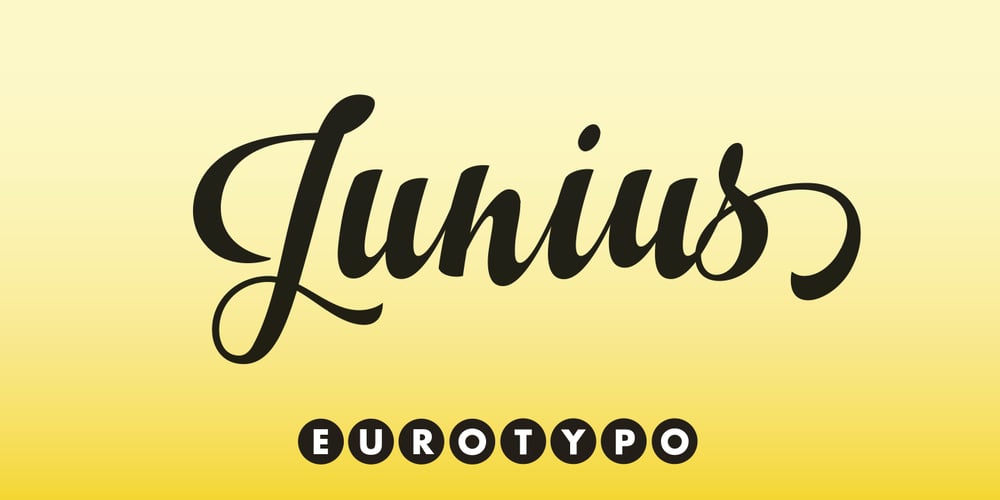
Junius Font Family was designed by Carine de Wandeleer and published by Eurotypo. Junius contains 1 styles and family package options. Are you looking for a new casual and organic script font? Please take a look at Junius! The Junius font is the perfect combination of sleek and casual that is best used in OpenType compatible software. This font contain 797 glyphs, equipped with plenty of OpenType features. Upper case letters can alternate between at least two different forms. Lowercase letters have at least six more options to avoid repetition. These effects include initial and final forms of lowercase letters. In addition, there is a set of 65 ornaments designed to support the font (accessing the ornaments through the Glyph palette). Some of these ornaments were specially designed to be combined with the letters for a “more calligraphic” effect. Junius font can be the option used to create titles, logos and posters for brand and packaging purposes. I hope you enjoy it.